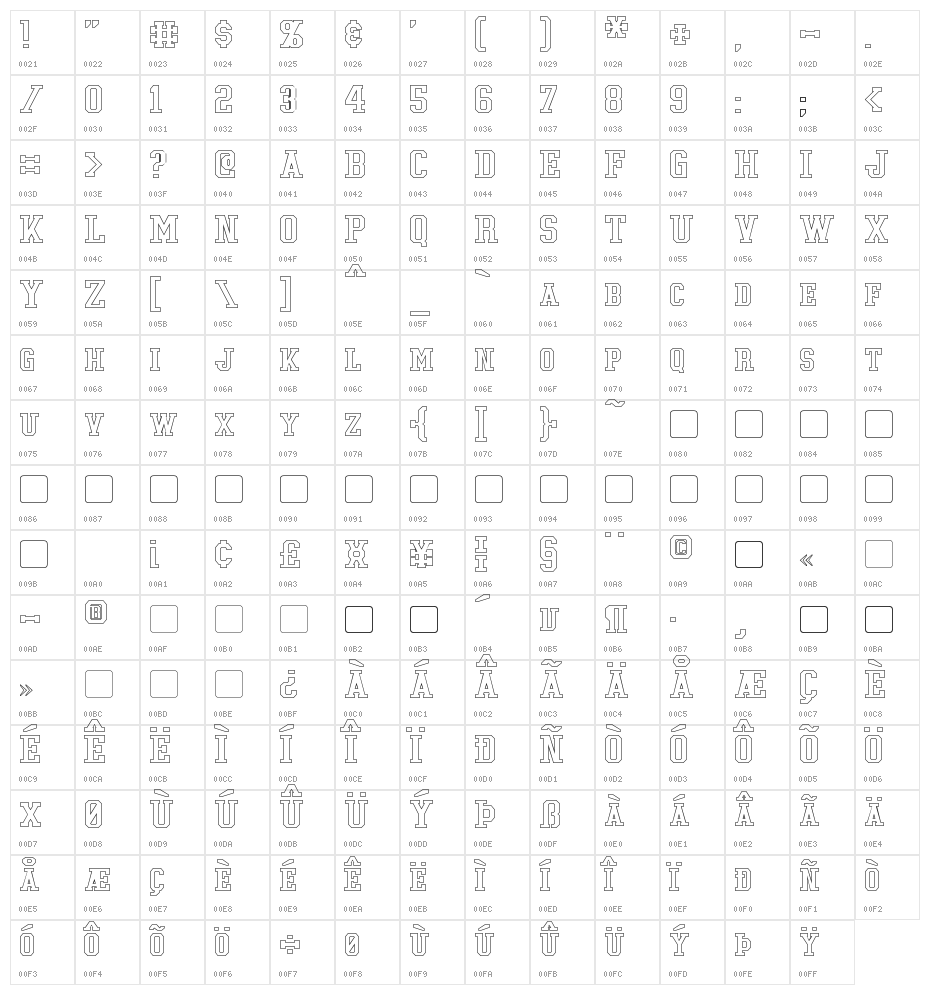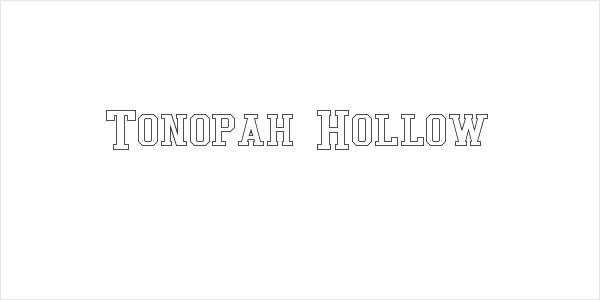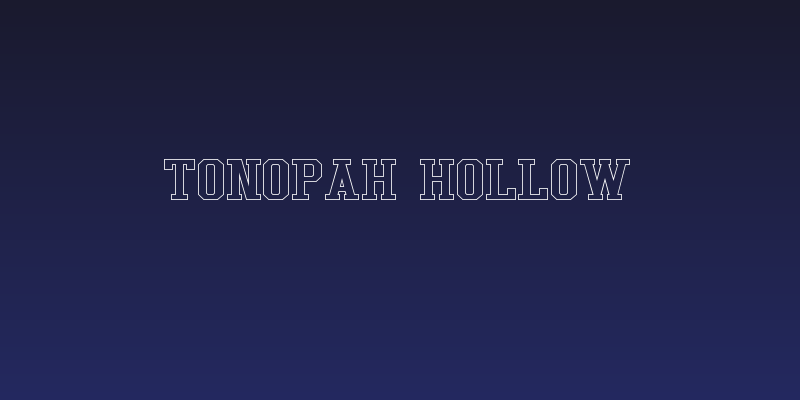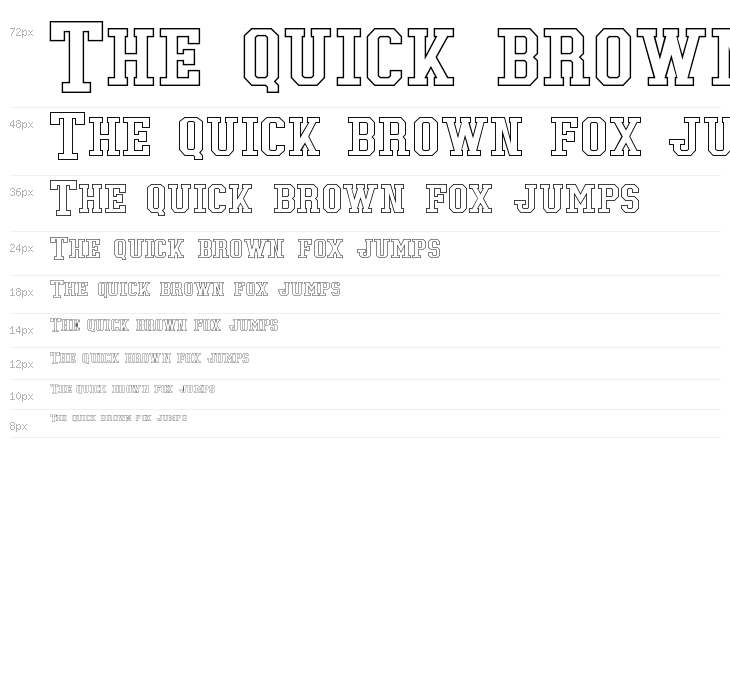
Tonopah Hollow Font
Tonopah Hollow Description
This font features a bold, geometric design with a hollow interior, giving it a striking and modern appearance. The characters are outlined with a consistent stroke width, creating a sense of uniformity and balance. The uppercase letters are prominent and commanding, while the numerals and special characters maintain the same bold style. The overall look is reminiscent of sports or collegiate themes, making it ideal for projects that require a strong and impactful visual presence.
| Proposed Projects | Perfect for sports team logos, event posters, and merchandise branding. |